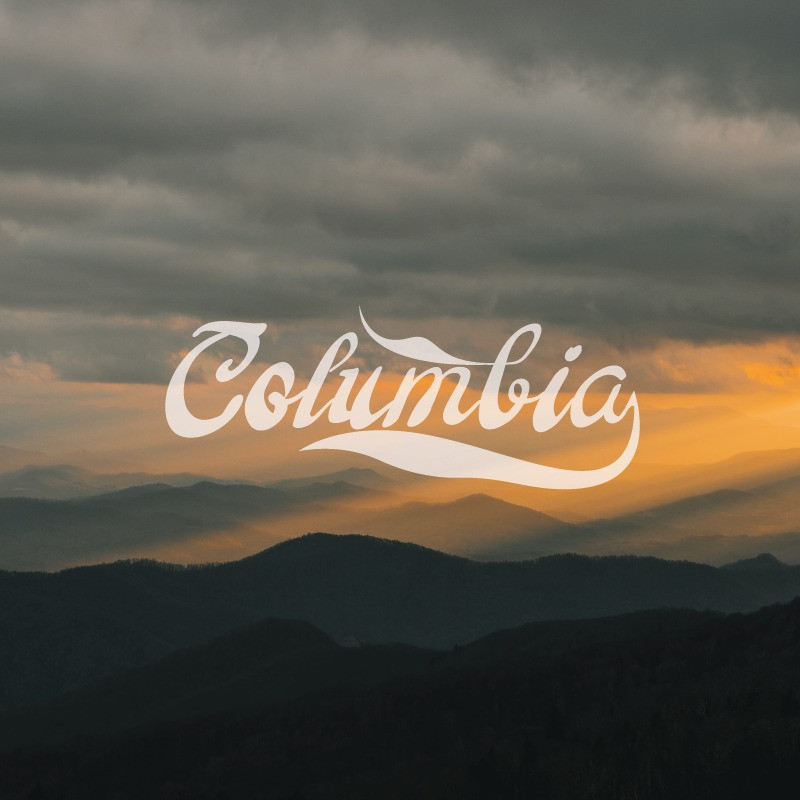
Maristella Handwritten Font
Maristella Handwritten Font is a signature font that is unique, has an elegant style and is wrapped with an original hand stroke so it will be very suitable for your design project